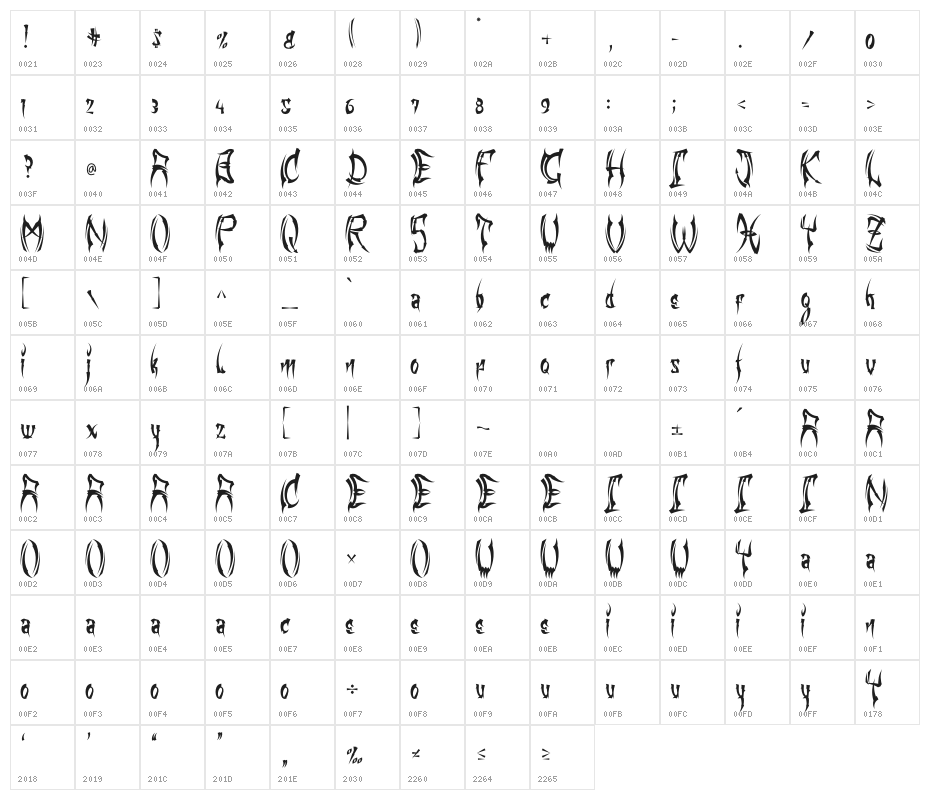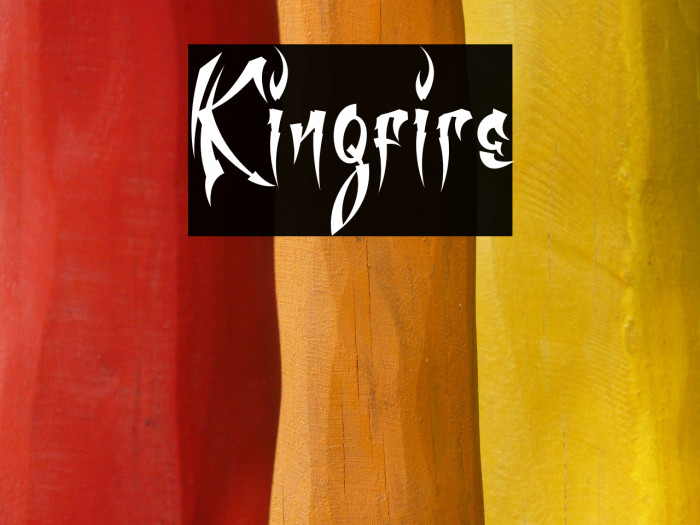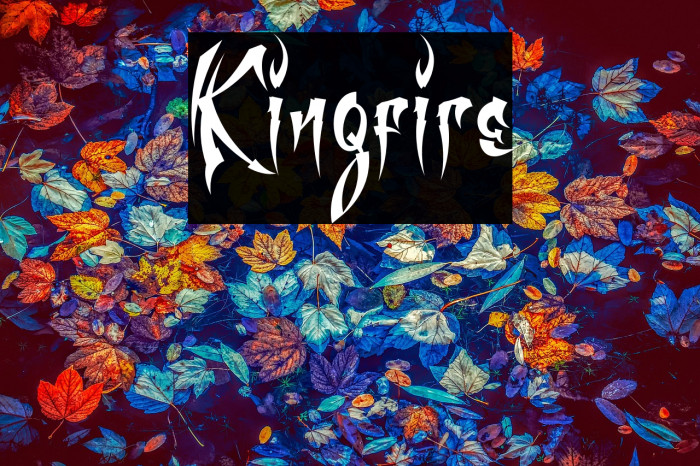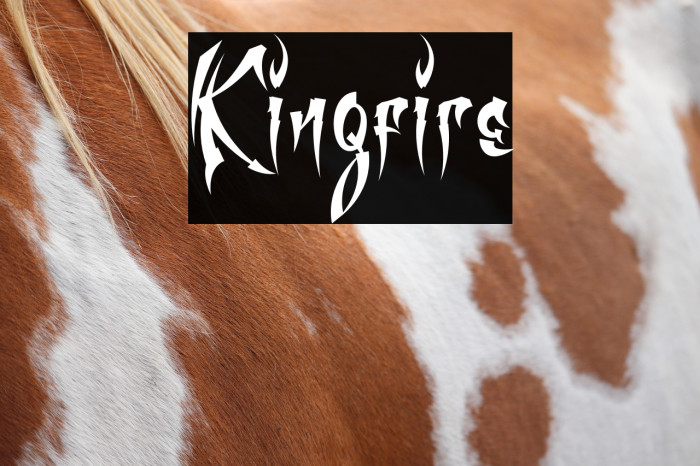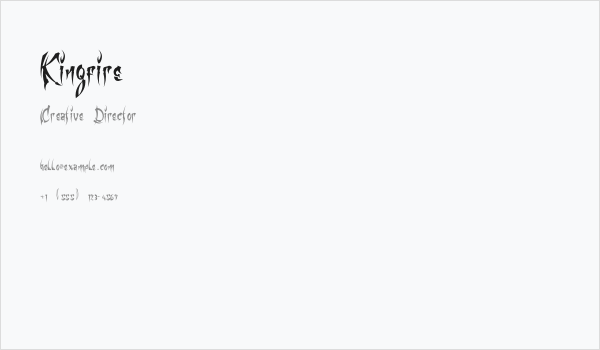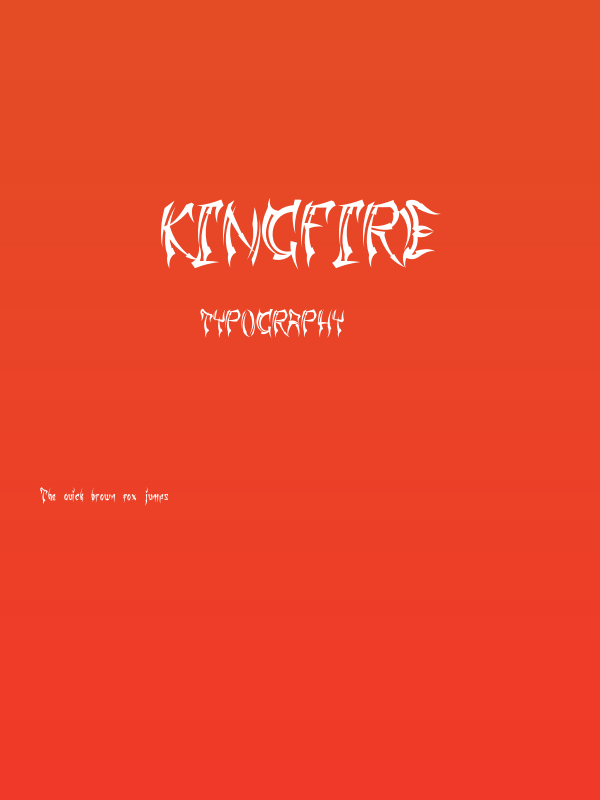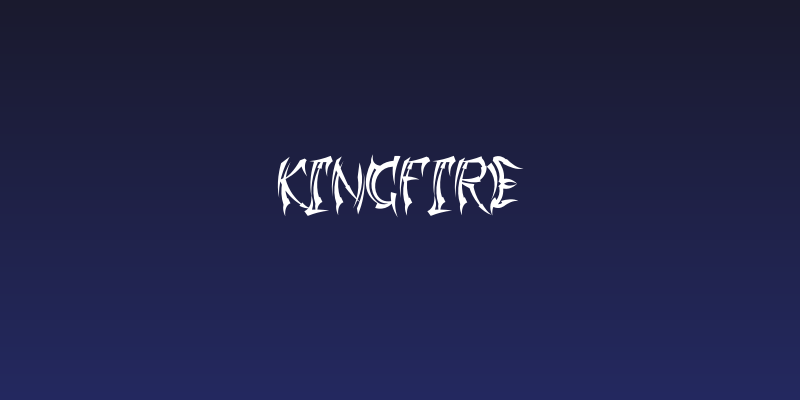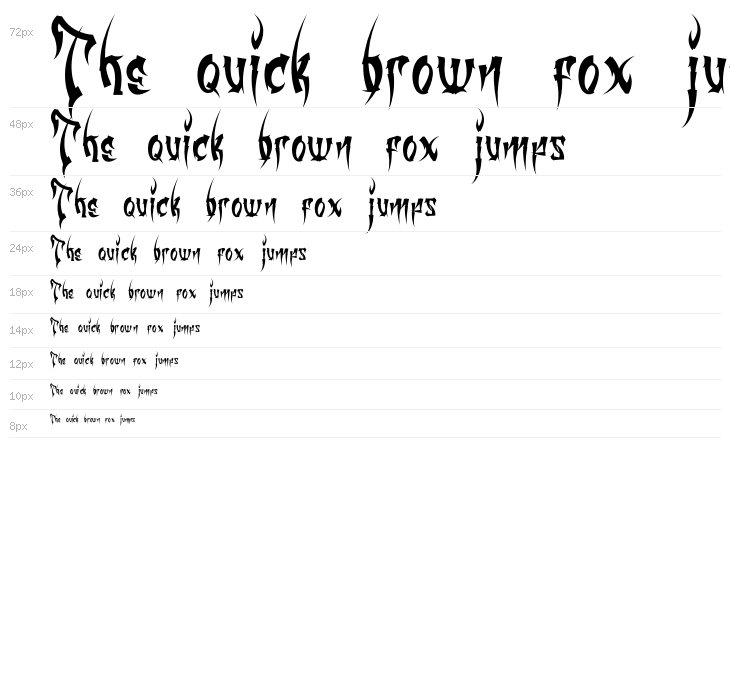
Kingfire Font
This font features a bold, aggressive style with sharp, jagged edges and a gothic influence. The characters are highly stylized, with exaggerated points and curves that give them a fierce, dynamic appearance. The uppercase letters are particularly striking, with a sense of movement and energy. The lowercase letters maintain the same sharpness but are slightly more subdued. Numbers and special characters follow the same design principles, ensuring consistency throughout. This font is ideal for projects that require a dramatic and impactful visual presence.
| Overall Style | Gothic, Dramatic |
| Proposed Projects | Perfect for album covers, posters, video game titles, and any project needing a bold, dramatic impact. |